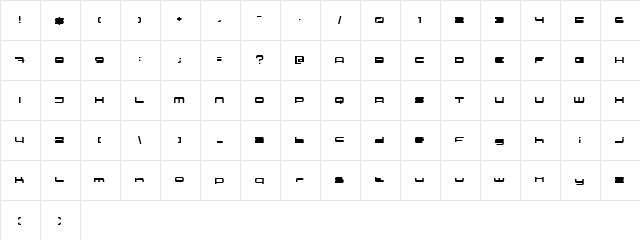
XXII STATIC Regular
| Foundry | Lecter Johnson |
| Designer | Lecter Johnson |
Design Context for XXII STATIC Typeface
XXII STATIC takes a measured approach to typography — its balanced proportions and neutral character make it a reliable workhorse for both digital and print work.